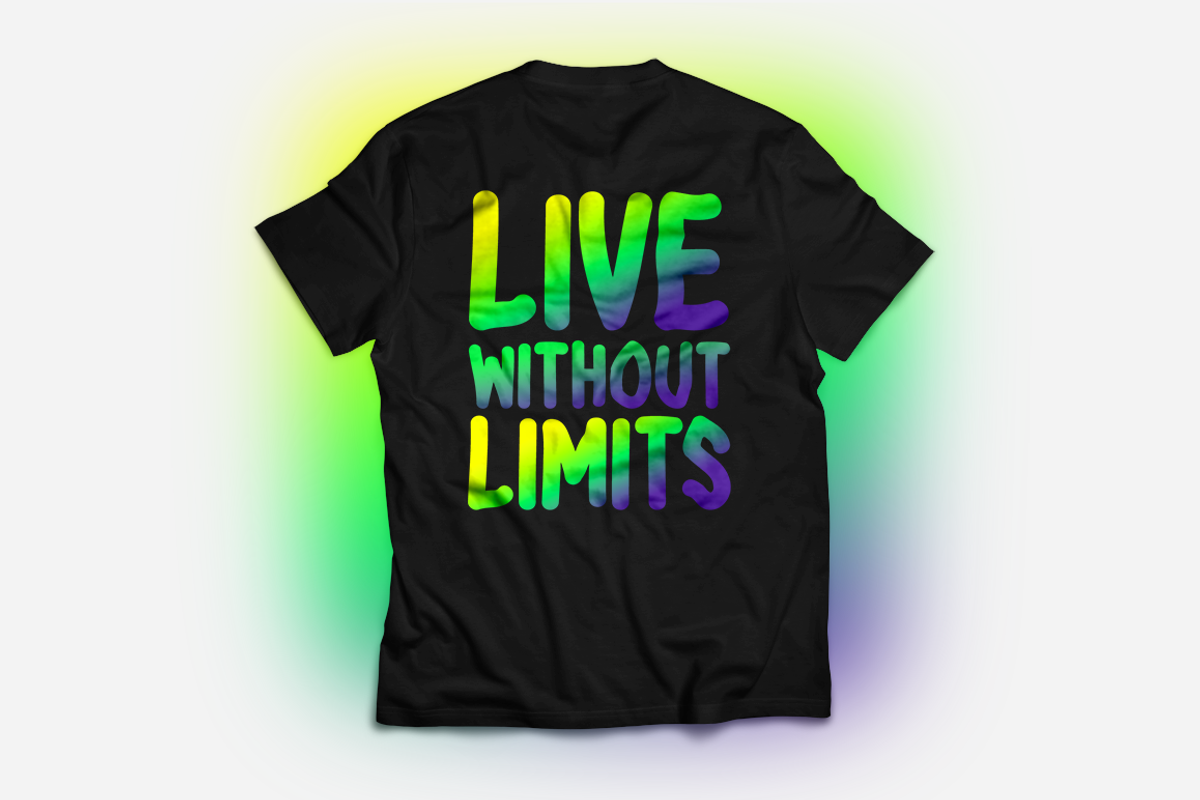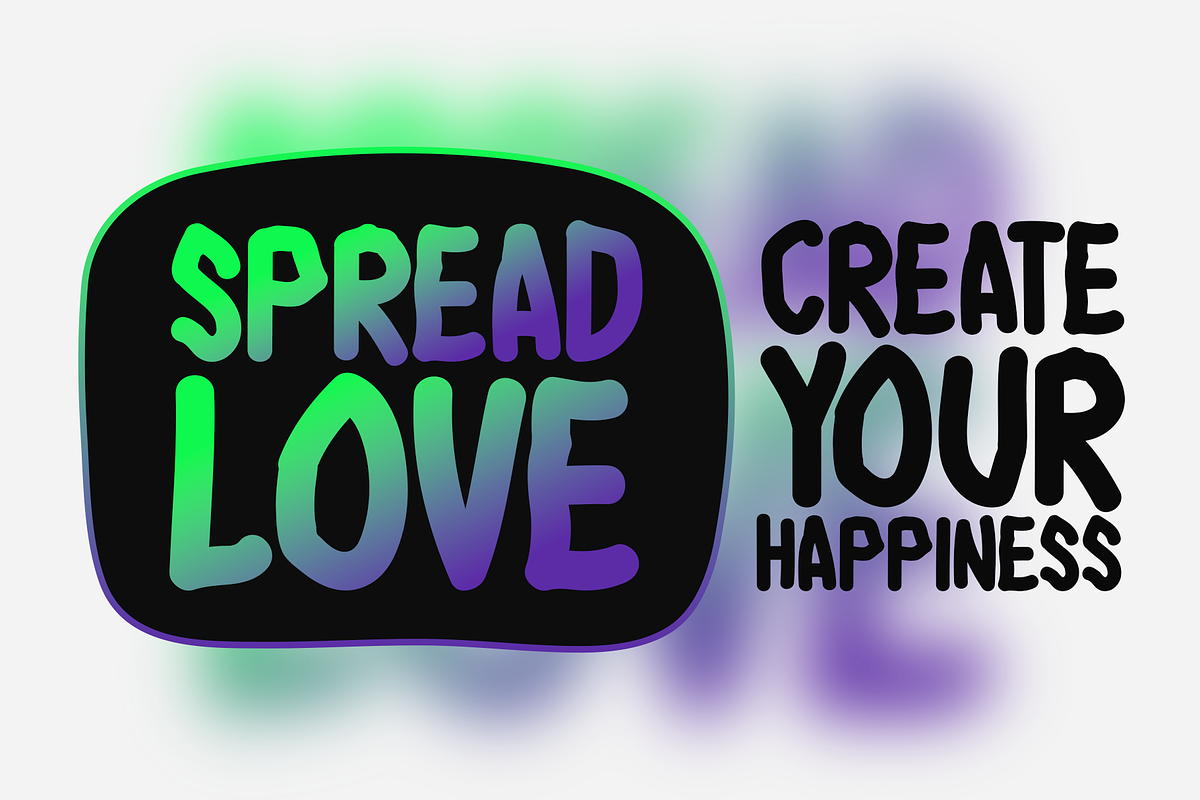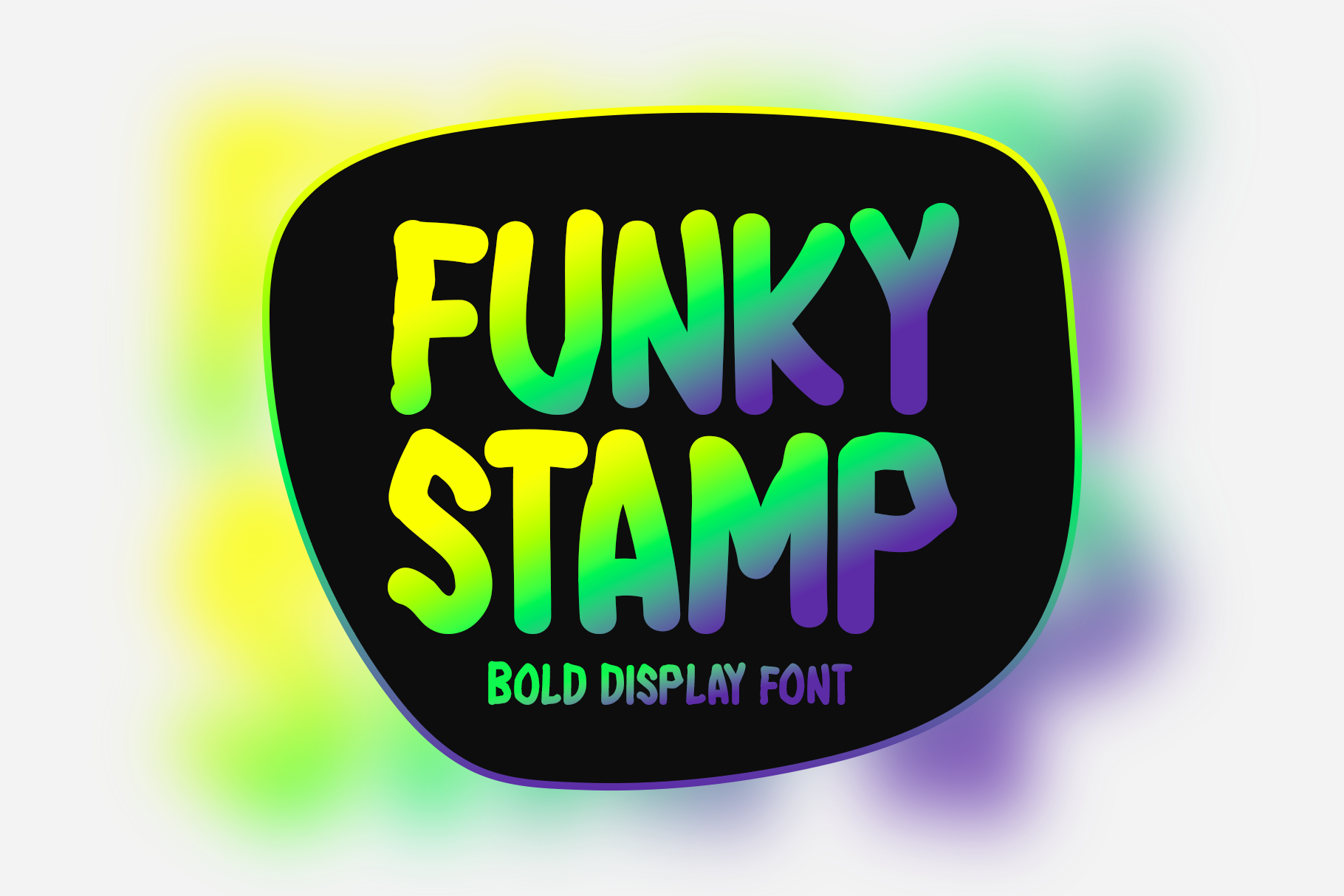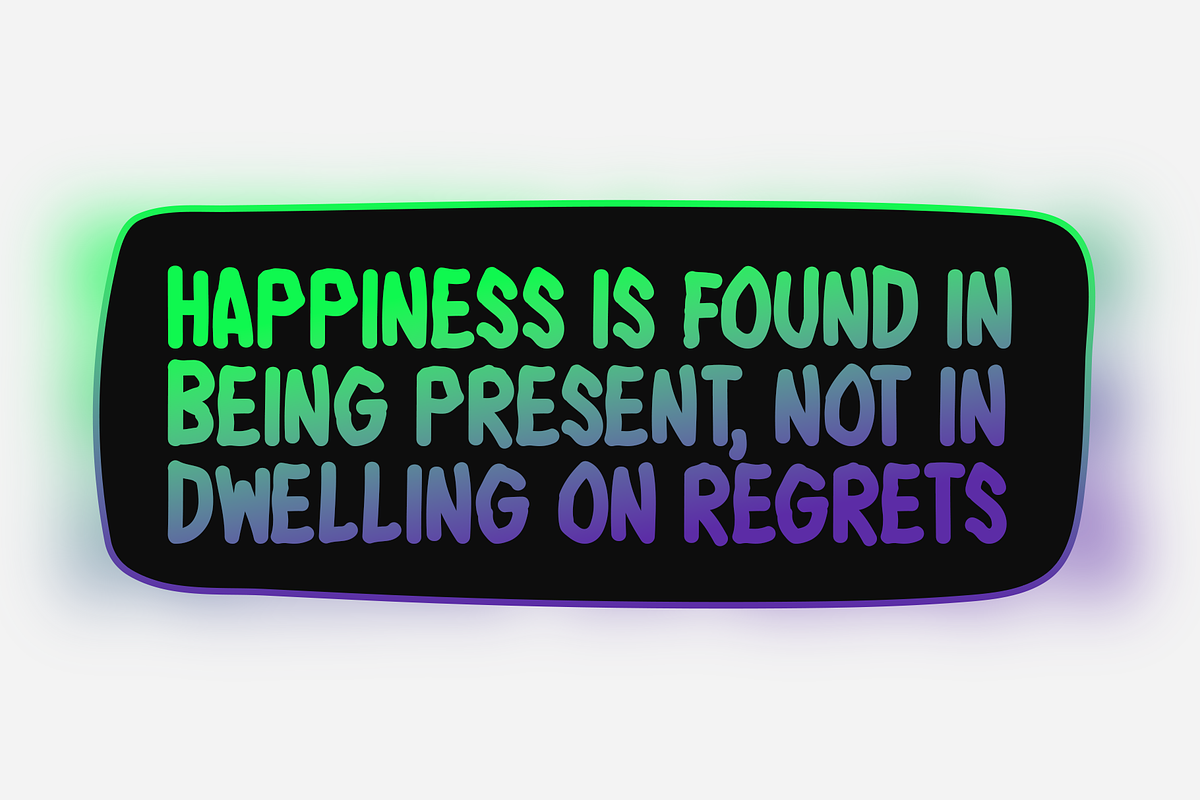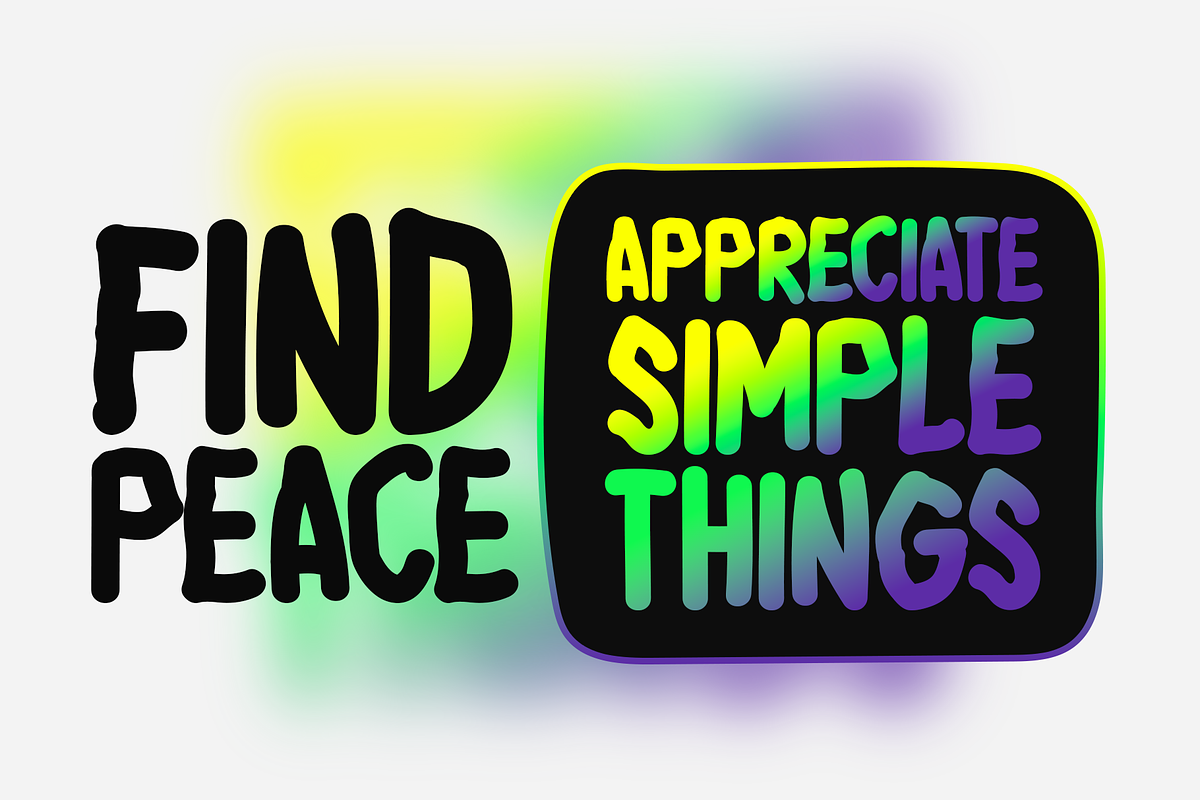
Funky Stamp Typeface
Introducing Funky Stamp!
Funky Stamp is a bold, eye-catching display font designed to make a statement. Whether you're designing for print, digital media, or branding, Funky Stamp brings a fresh, dynamic look to your projects. Its versatile nature makes it ideal for everything from logo design and stationery to t-shirts, flyers, photo frames, and posters. Use it for website headers, music covers, image sliders, and much more—Funky Stamp delivers the perfect blend of style and flair for any creative project.